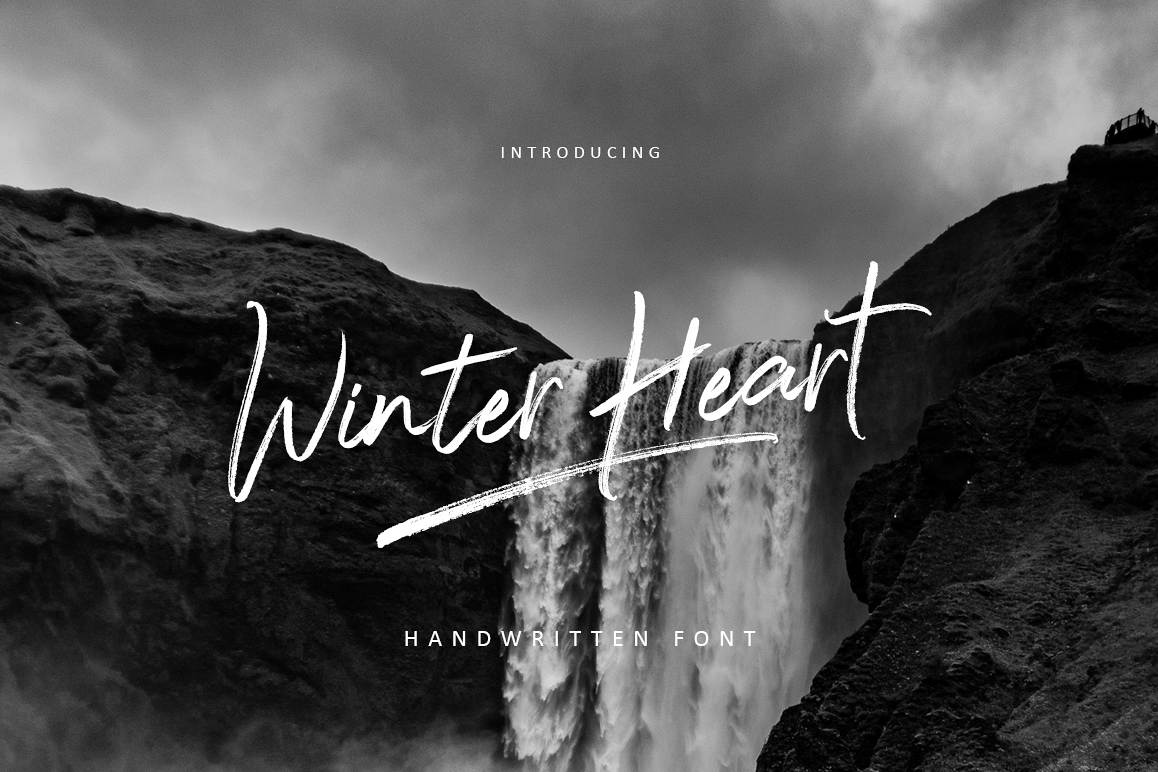
Winter Heart
Introducing Winter Heart handwriting brush ready used with awesome character.
Winter Heart is a natural brushed font with a smooth and stylish. This font will give you a fresh and modern
looking design and will look beautiful with offers, fashion magazines, logos & more.
Winter Heart Extras A additional line handmade to make your design look attractive